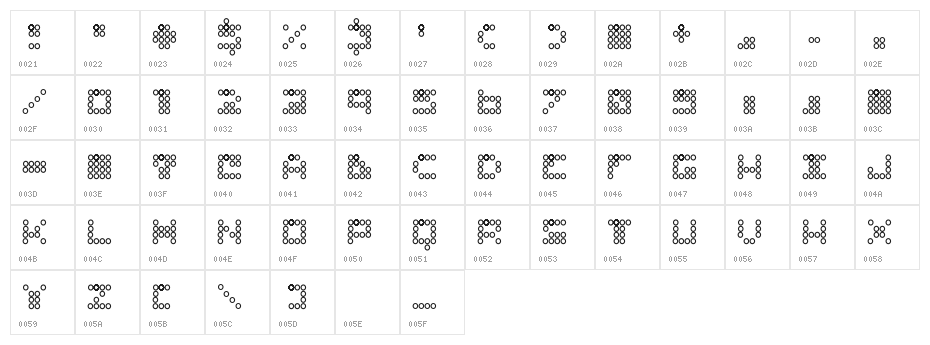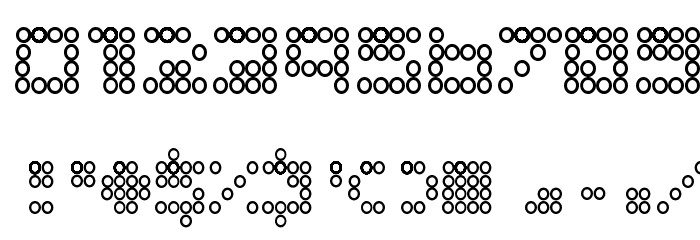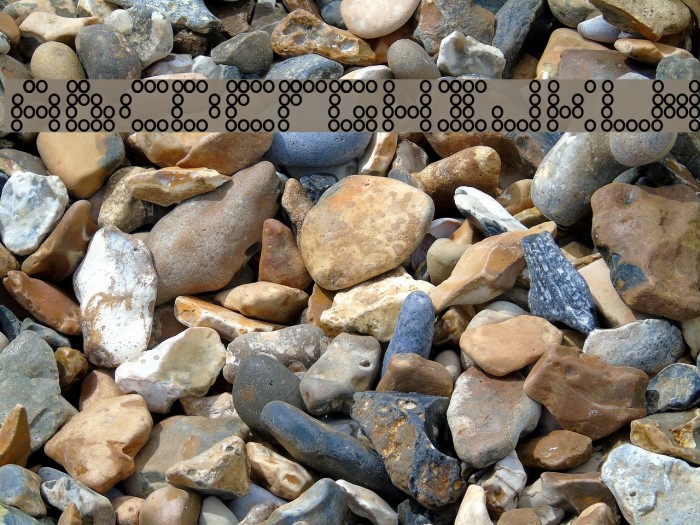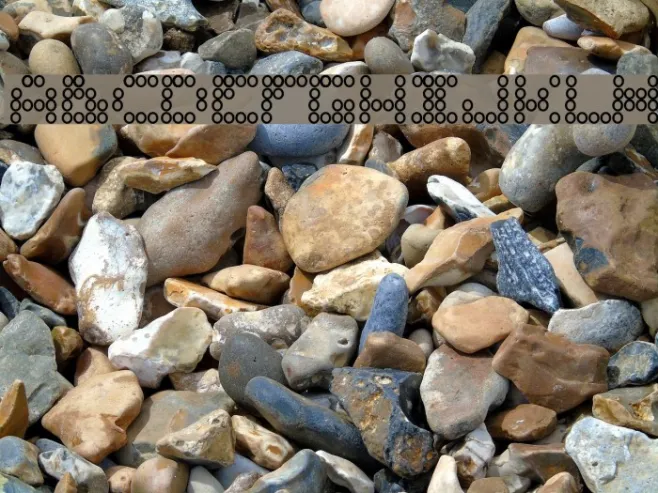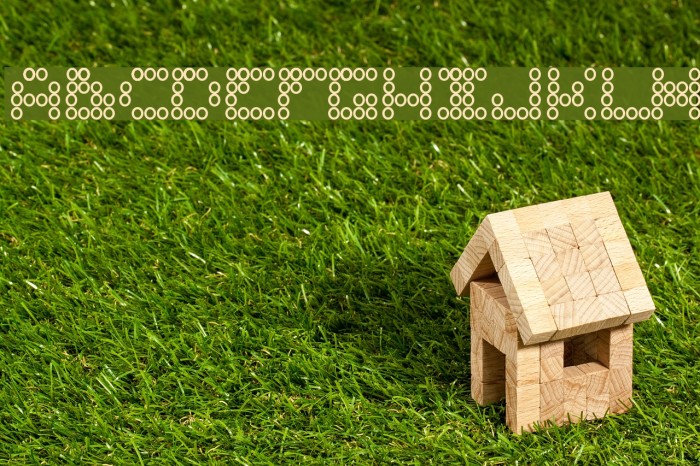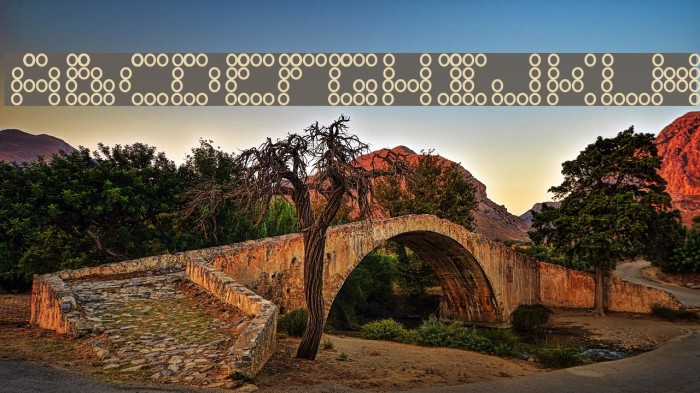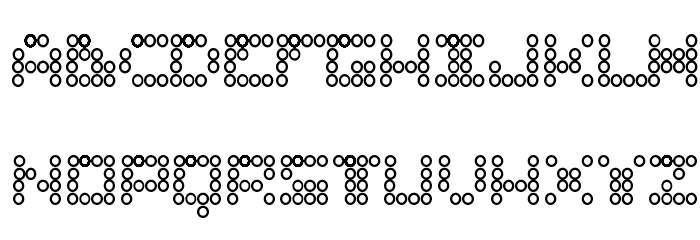
Con Ninguna Font
Con Ninguna Description
This font features a unique design composed entirely of small circles arranged to form each character. The circular elements create a dotted effect, giving it a playful and modern appearance. The characters maintain a consistent structure, with each letter and number clearly distinguishable despite the unconventional style. This font's geometric nature makes it stand out, offering a visually intriguing option for creative projects. The uniformity of the circles provides a cohesive look across all characters, while the spacing between the circles ensures readability. This font is ideal for projects that require a distinctive and artistic touch.
| Use Case | Logos, Posters, Digital Art |
| Proposed Projects | Ideal for creative designs, posters, digital art, and branding that require a unique and modern aesthetic. |